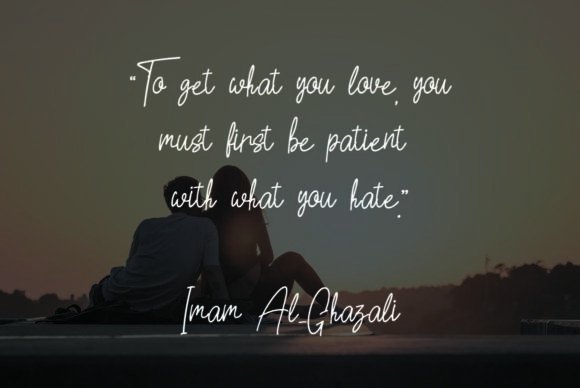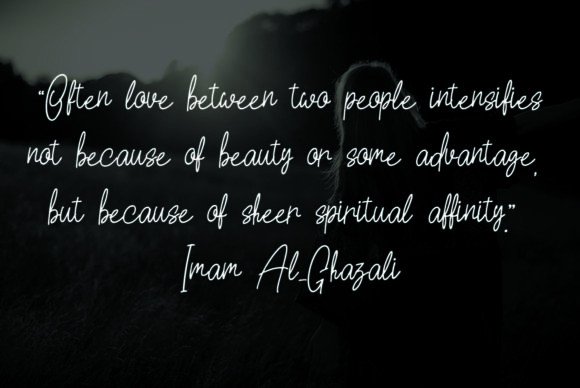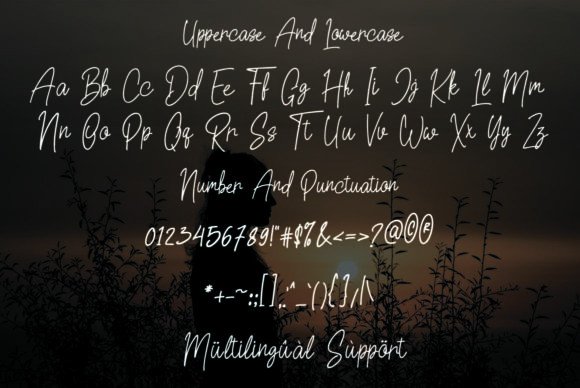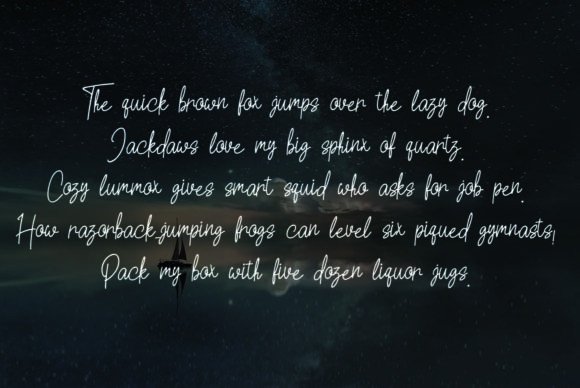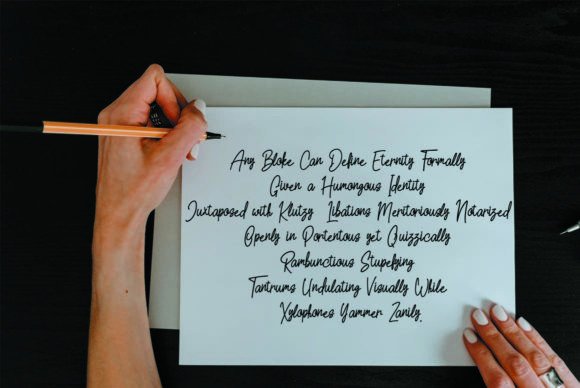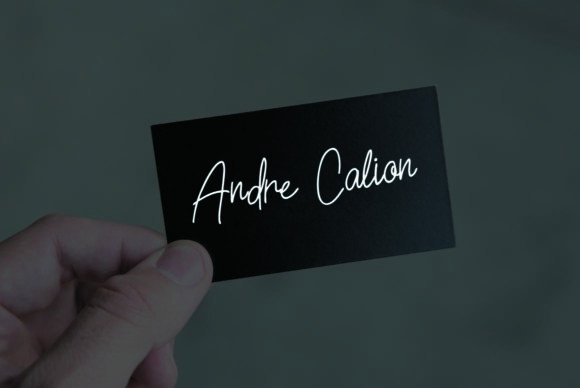
Bologna Font: Adding a Touch of Romance to Your Designs
Bologna is an enchanting handwritten font that has captured the hearts of designers and crafters alike. This versatile script font has a wide spectrum of applications, ranging from greeting cards to headlines, and is guaranteed to add a romantic feel to your next project. In this article, we’ll dive into the world of Bologna Font, exploring its features, uses, and benefits, as well as provide tips on how to make the most of this beautiful font.
The Charm of Bologna Font
Bologna Font is a handcrafted script font that exudes elegance and sophistication. Its flowing lines, delicate curves, and whimsical flair make it perfect for adding a touch of romance to any design. The font’s unique character set includes a range of letters, numbers, and punctuation marks, making it suitable for a variety of projects, from wedding invitations to social media graphics.
Features of Bologna Font
- Handwritten script font: Bologna Font is a genuine handwritten script font, giving it a personal and authentic feel.
- Versatile: Suitable for a wide range of projects, including greeting cards, headlines, wedding invitations, and more.
- Romantic feel: Adds a touch of elegance and sophistication to any design.
- Wide character set: Includes a range of letters, numbers, and punctuation marks.
Uses of Bologna Font
Bologna Font is an incredibly versatile font that can be used in a variety of contexts. Here are some ideas to get you started:
- Greeting cards: Add a personal touch to your greeting cards with Bologna Font’s elegant script.
- Wedding invitations: Make your wedding invitations truly special with this beautiful font.
- Headlines: Use Bologna Font to add a touch of sophistication to your headlines and titles.
- Social media graphics: Add a romantic flair to your social media graphics with Bologna Font.
- Branding: Use Bologna Font to create a unique and memorable brand identity.
Benefits of Using Bologna Font
So why choose Bologna Font for your next project? Here are just a few benefits of using this beautiful font:
- Unique and distinctive: Bologna Font is a one-of-a-kind font that will set your designs apart from the rest.
- Elegant and sophisticated: Adds a touch of elegance and sophistication to any design.
- Easy to read: Despite its ornate appearance, Bologna Font is surprisingly easy to read.
- Customizable: Experiment with different colors, sizes, and styles to make Bologna Font your own.
Tips for Using Bologna Font
To get the most out of Bologna Font, here are a few tips to keep in mind:
- Use it sparingly: Bologna Font is best used in moderation. Use it to add a touch of elegance to your design, but avoid overusing it.
- Experiment with colors: Try pairing Bologna Font with different colors to create a unique and eye-catching effect.
- Mix and match: Combine Bologna Font with other fonts to create a unique and interesting contrast.
- Pay attention to size: Make sure to adjust the size of Bologna Font to suit your design. A larger size can be used for headlines, while a smaller size can be used for body text.
Bologna Font is a beautiful and versatile script font that is sure to add a touch of romance to your next project. With its elegant lines, delicate curves, and whimsical flair, it’s perfect for a wide range of applications, from greeting cards to headlines. Whether you’re a designer, crafter, or simply someone who appreciates beautiful typography, Bologna Font is a must-have font in your collection.